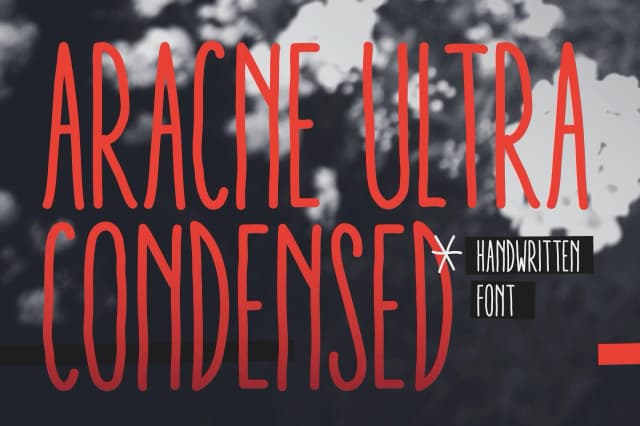
Aracne Condensed Font by antipixel is a handwritten script with rough, informal character that works effectively at narrow widths without compromising readability or personality. Created as a companion to the original Aracne design, this condensed version maintains the spontaneous, hand-sketched feel of its predecessor while offering a practical space-saving option for projects needing vertical emphasis and narrow proportions. The stamped, organic quality brings human authenticity to creative work without feeling overdone or artificial.
This handwritten typeface suits specialized design applications where a sketch-like, personal touch makes a real difference. It works well for wedding invitation suites where personal details strengthen the guest experience, Etsy product labels needing artisanal appeal, boutique skincare and cosmetics packaging that emphasizes handmade quality, and DIY craft signage celebrating imperfection. The irregular, human-drawn letterforms read as genuinely sketched rather than electronically manufactured, which gives the font its distinctive appeal across each use case.
Aracne Condensed Font is a script font that shines as a display or heading face. Pair it with a clean sans-serif or serif font for body text β the contrast creates a clear hierarchy while the two styles stay balanced and easy to read.
Aracne Condensed Font
by antipixel